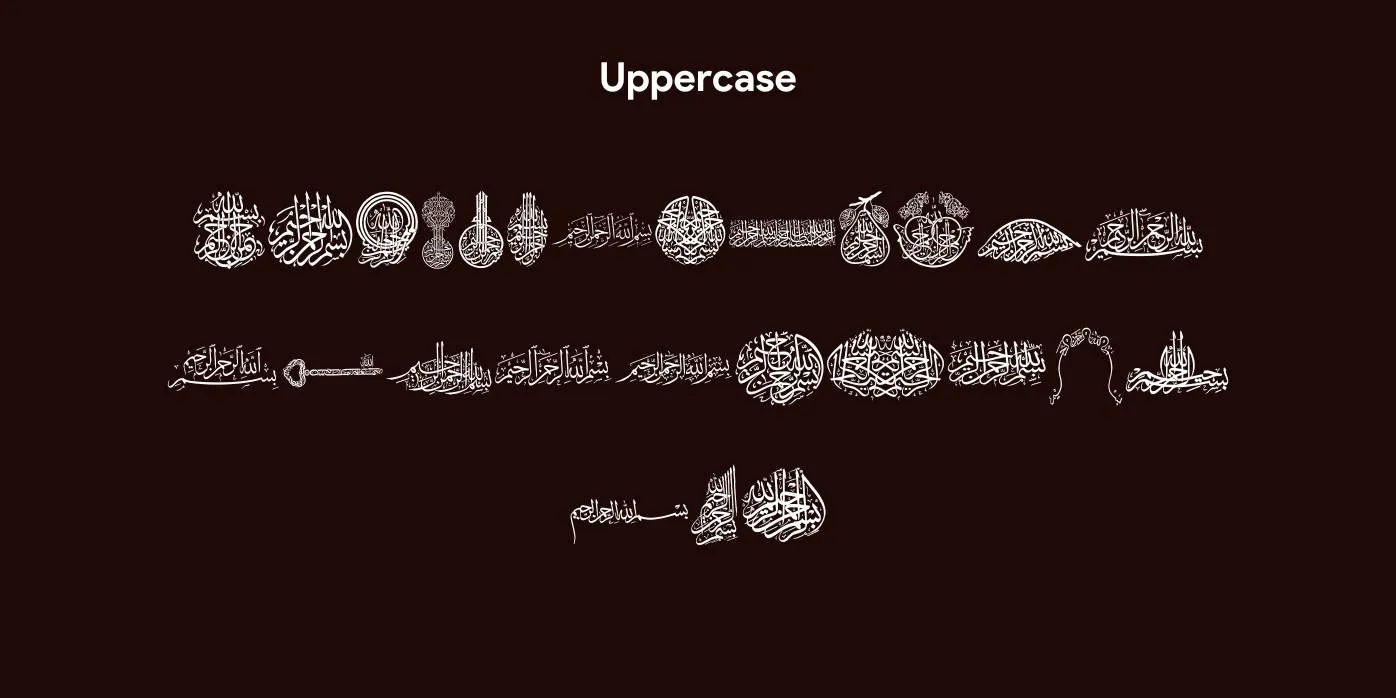
Arabic Bismillah Font is an elegant calligraphy font that was designed by an unknown designer. This font style has a stylish and unique Arabic calligraphy touch that makes it perfect for headlines, titles, and branding, and it comes with TTF and OTF formats.
This typeface has only Regular style and it also includes uppercase, lowercase, numbers, punctuations, symbols, signs, alternates, accents, ligatures, and a few special characters.
This font is perfect for the creation of logos, banners, titles, themes, headlines, backgrounds, letterheads, flyers, headers, billboards, footers, articles, brochures, content, branding, posters, promotions, banners, publicity, and various other projects.
What type of font is Arabic Bismillah Font?
This font is an elegant calligraphy font that was designed by an unknown designer.
Why is the Arabic Bismillah typeface so popular?
This typeface has a cute, stylish, and Arabic calligraphy texture. You can surely make your design more charming, delicate, and expressive, these features and TTF and OTF formats make it so popular.